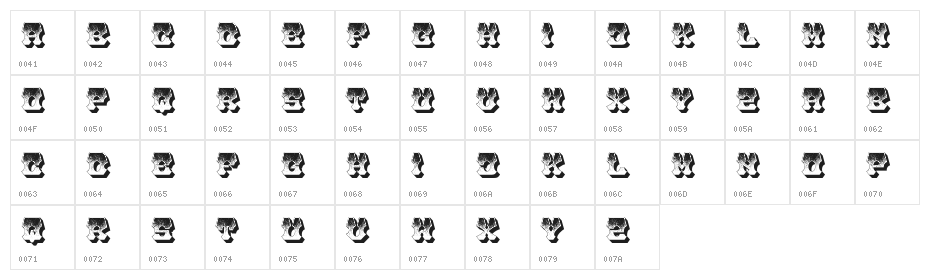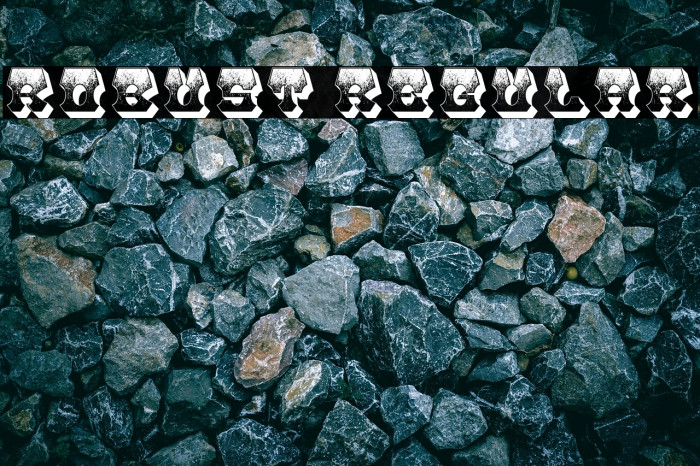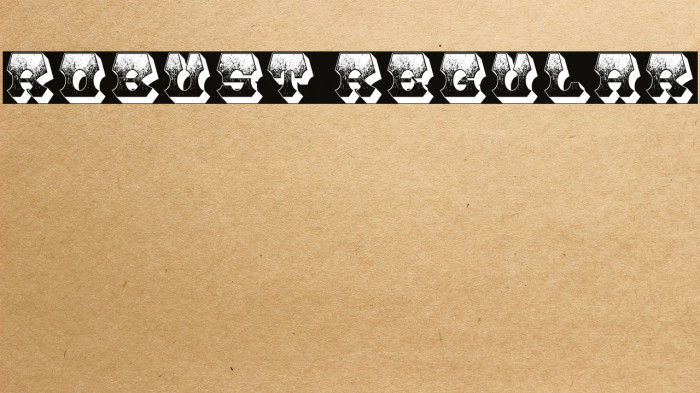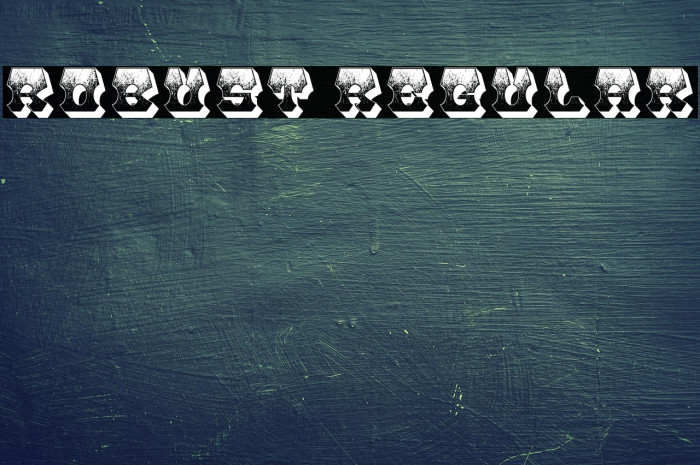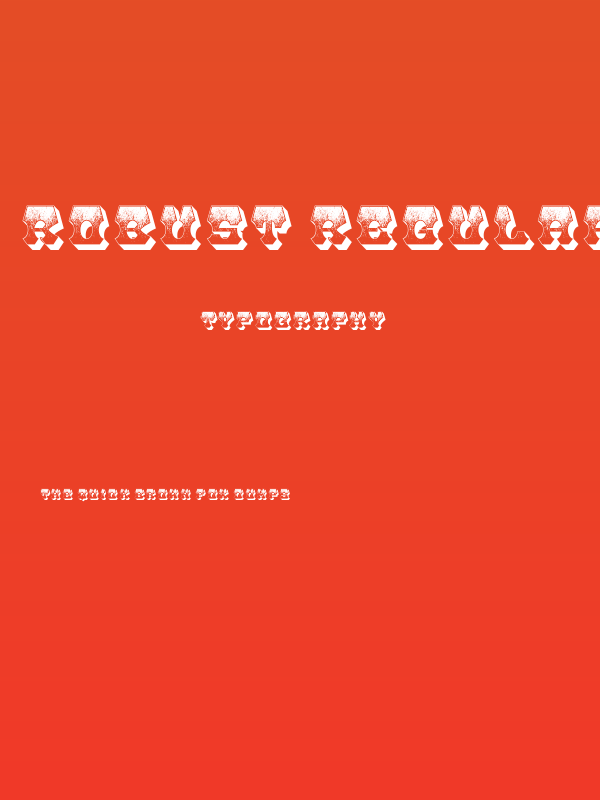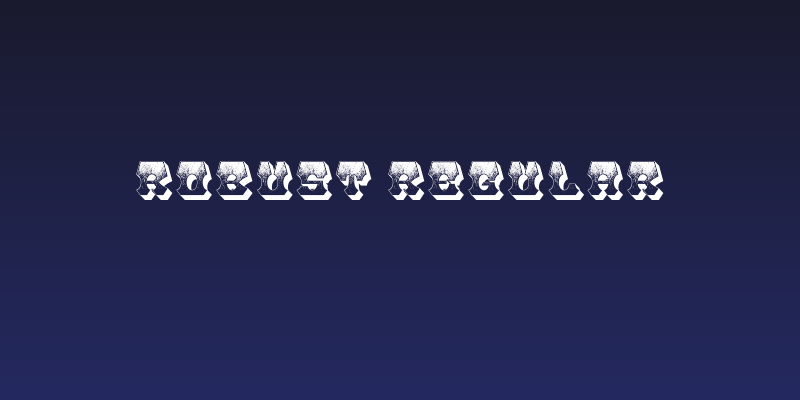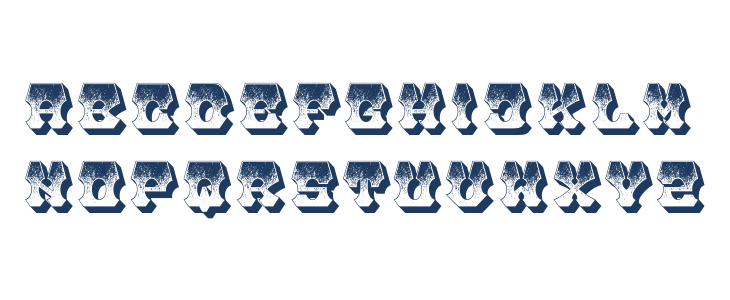
Robust Regular Font
Robust Regular Description
This font features a bold, three-dimensional design with a textured, shadowed appearance. Each character is crafted with a distinct, blocky structure that gives it a strong, impactful presence. The texture within the letters adds a vintage, almost industrial feel, while the shadows create a sense of depth and solidity. The uppercase and lowercase letters maintain a consistent style, ensuring uniformity across the typeface. The numbers and special characters are equally robust, making them suitable for various design applications. The overall aesthetic is both decorative and functional, ideal for projects that require a standout typographic element.
Overall StyleVintage, Decorative
Use CaseHeadlines, Logos, Posters
Proposed ProjectsIdeal for posters, logos, branding, and any design needing a bold, eye-catching typeface.